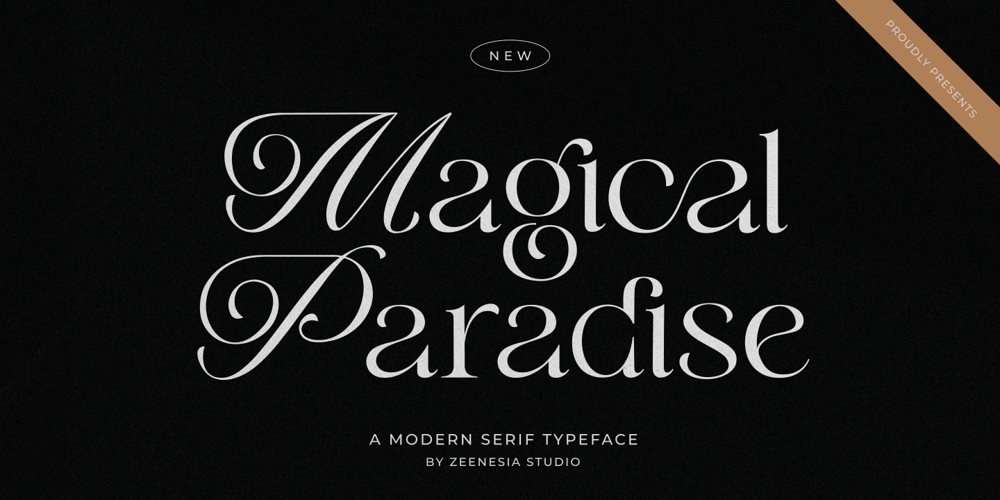
Magical Paradise
Magical Paradise font
Magical Paradise Font Family was designed by Doni Purwoko and published by Zeenesia Studio. Magical Paradise contains 1 styles and family package options. Introducing Magical Paradise. Magical Paradise is a modern display font with serif combine with script style. It’s modern and classic font with a unique and deference look . Perfect if you need a dose of fun in your project. Perfect for editorial projects, Logo design, web font, clothing branding, product packaging, magazine headers, or simply as a stylish text overlay to any background image.We hope you enjoy the font, please feel free to comment if you have any thoughts or feedback.Thanks for purchasing and glad to help you!